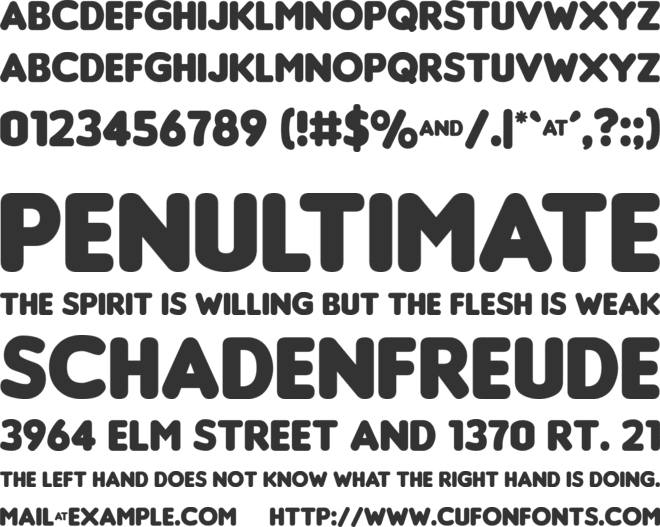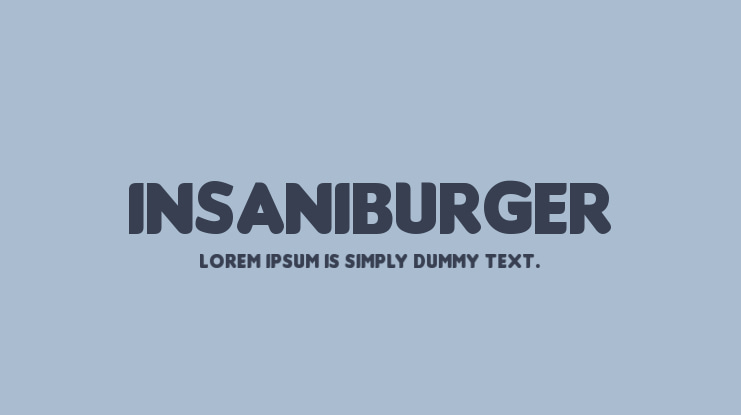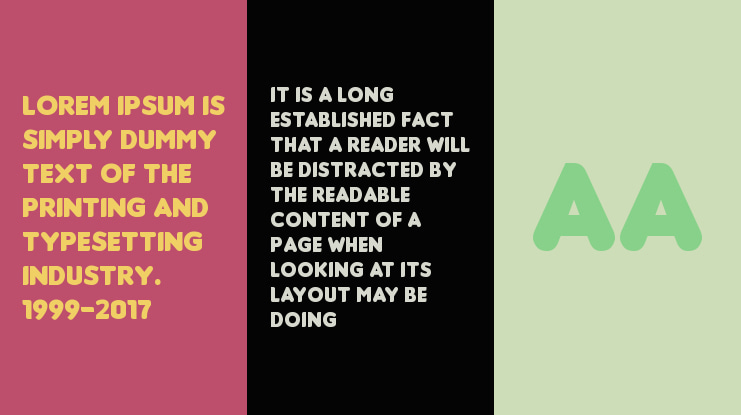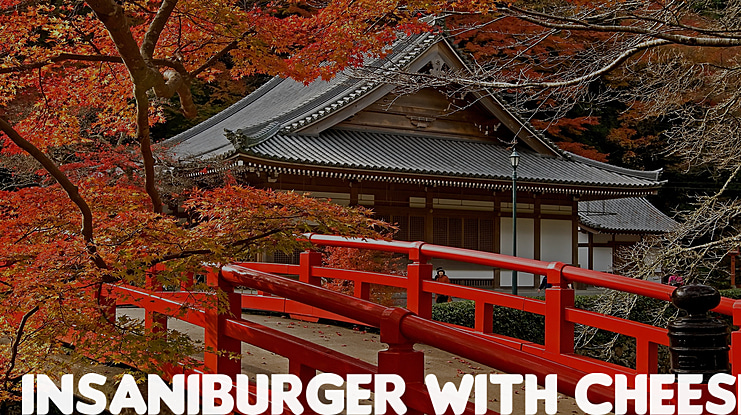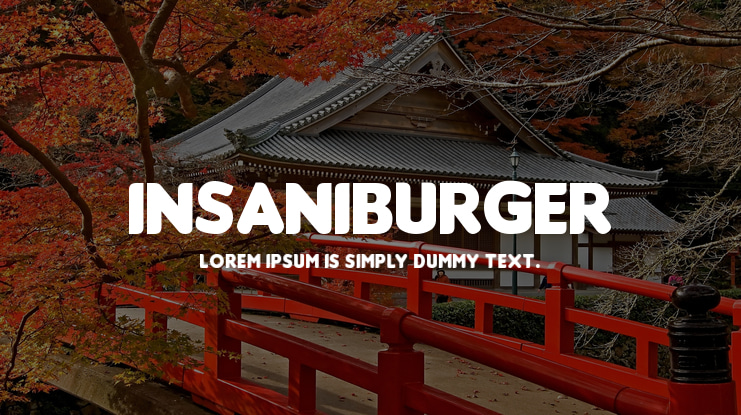
Insaniburger Font Family
Thanks for downloading "Insaniburger" from Insanitype! Font Design. This zip file contains "Insaniburger Regular" and "Insaniburger with Cheese". "Insaniburger Regular" is based on the old Burger King logo that's still seen on some of the signs in smaller cities. "Insaniburger with Cheese" is based on the new logo, which is somewhat similar to the old one, but with a playful yet futuristic twist. Use it for anything, and let me know if you do!